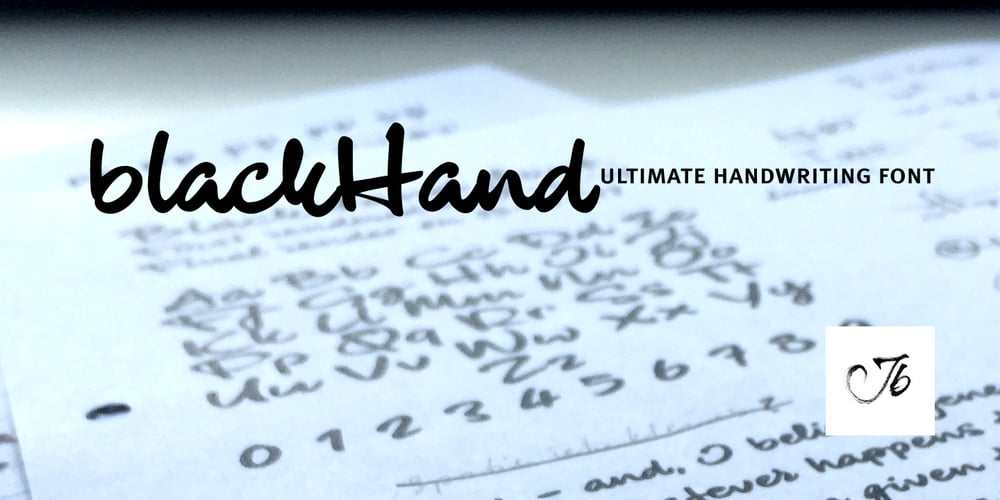
BlackHand Font Family was designed by Jeroen “Joebob” van der Ham and published by JOEBOB graphics. BlackHand contains 1 styles and family package options. Finally the time has come to publish our new ‘BlackHand’ font. It is a bold and upright handwritten font featuring 150 ligatures, which make for a credible handwritten look and feel. The ligatures will appear quasi random without the user having to search for the right alternate character in a list of glyphs. As you will notice, the font does well in both headers (it even has an ‘instant logo’ quality) and in plain text. The font finds it’s origin in handwritten notes which were done without paying attention to aesthetics. The regular characters and the ligatures were handpicked to form an organic and natural, very readable result. The original writing was done with an Edding 1340 brushpen, giving the font frivolous thick/ thin strokes. We hope you enjoy using the font as much as we did creating it. As an introduction offer, you can get it now at 50% off in the first month after publishing.